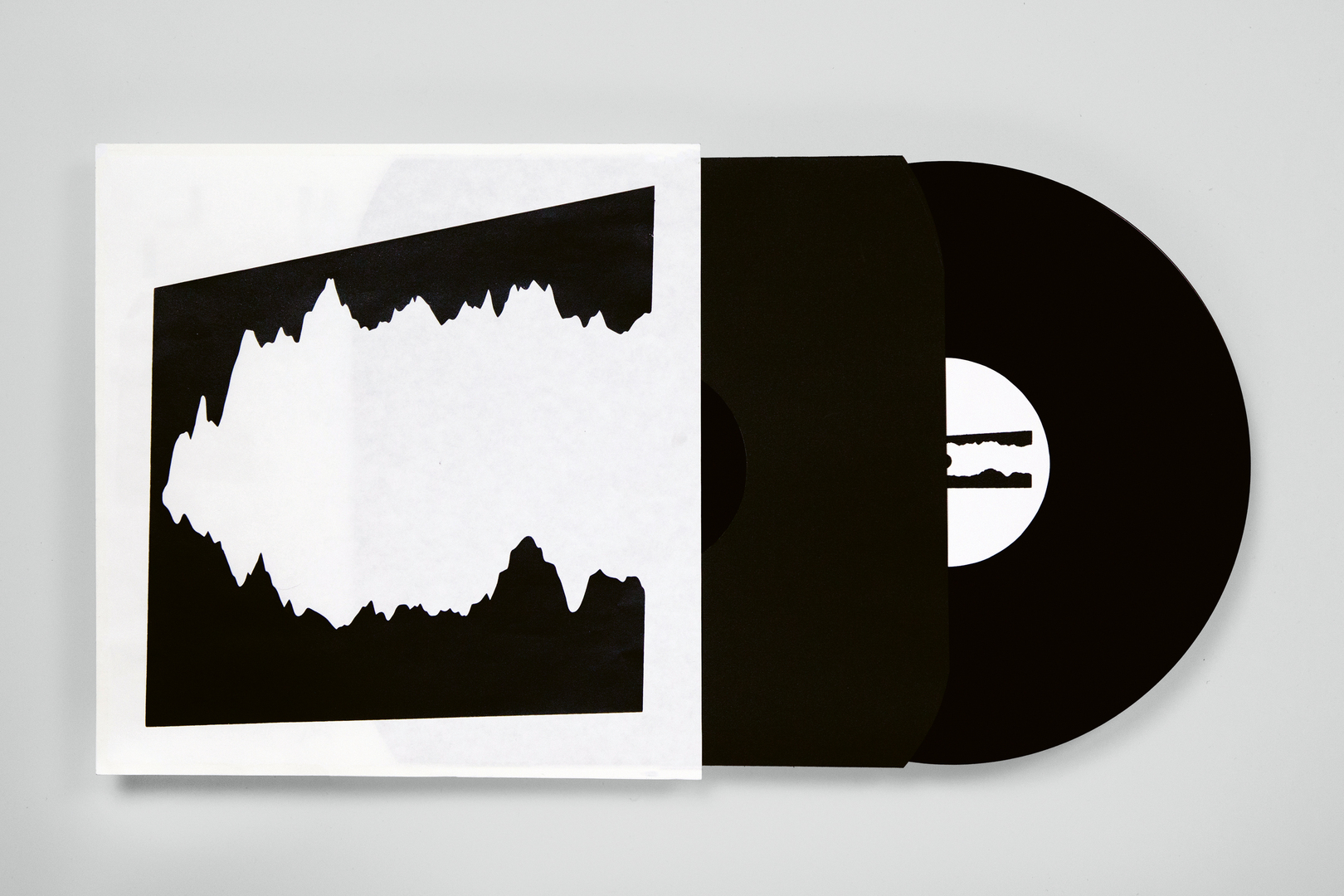
Music Packaging
Psychedelic Font
This set of fonts, in bold black-and-white with few red highlights, has been conceived for the cover of trip hop albums. Trip hop incorporates a variety of sounds, such as samples of spoken words, electronic noise and slow, bass-heavy beats. In line with the edgy music, the typographic design takes an experimental approach. By distorting letters or turning them into abstract patterns, an erratic typography is created which alludes to abundant unconscious activities and lends the packaging a psychedelic touch.